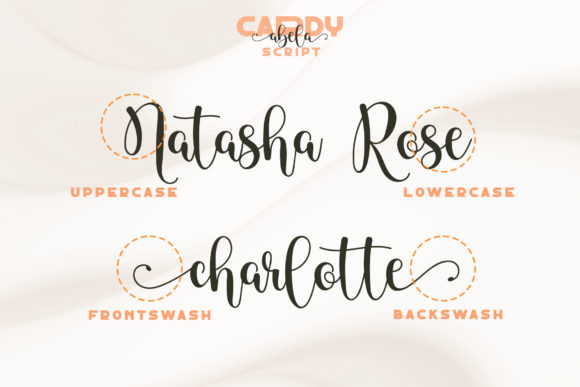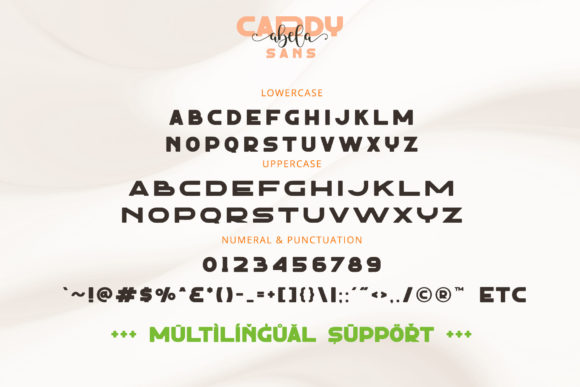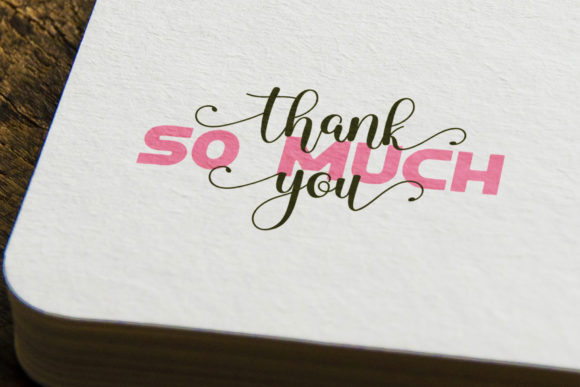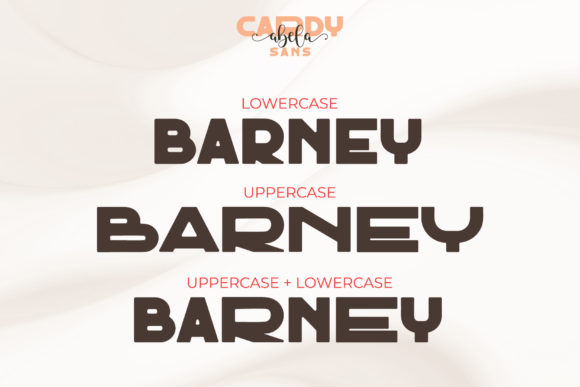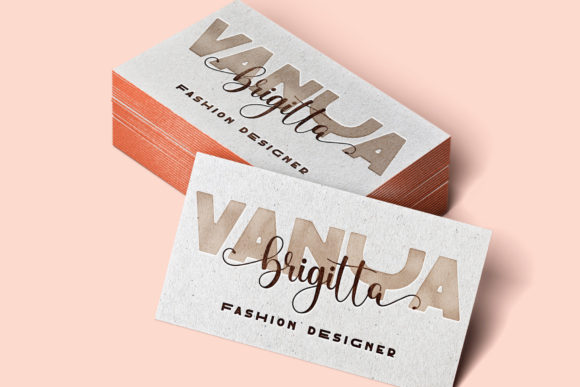
About Cardy Abela Font
Cardy Abela is a versatile, elegant yet bold duo font (handwritten and sans serif). It looks lovely on wedding invitations, thank you cards, quotes, greeting cards, logos, business cards and every other design which needs a unique touch.